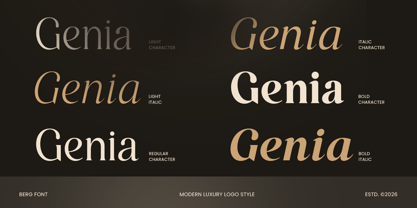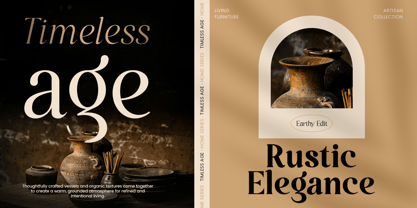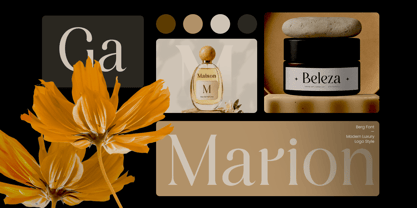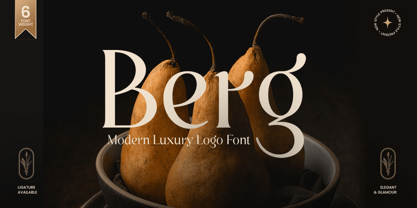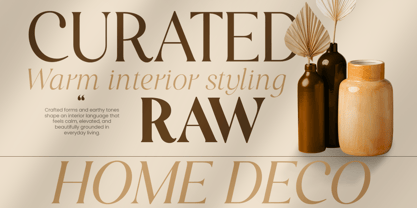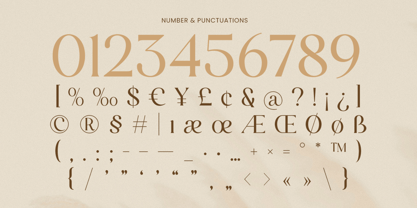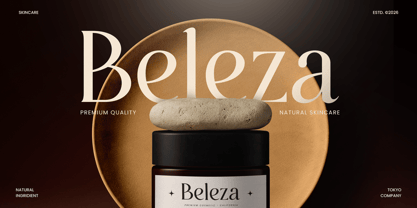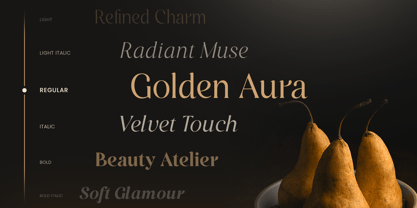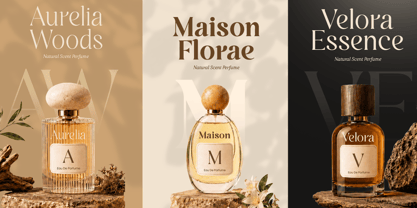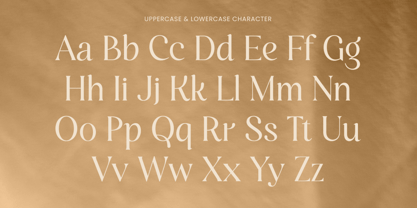
Berg is a modern luxury logo font designed to deliver refined sophistication with a clean contemporary edge. With polished letterforms, balanced proportions, and a confident visual rhythm, this typeface creates a premium tone that feels elegant, stylish, and instantly brand-ready.
Built for logo-focused branding, Berg works beautifully across wordmarks, brand identity systems, website headers, editorial layouts, packaging, labels, invitations, signage, presentations, and upscale marketing visuals. Its modern luxury structure keeps every composition clear and polished while adding a high-end presence across both digital and print design.
Whether you’re building a fashion identity, developing a beauty brand, designing premium packaging, or crafting elegant promotional materials, Berg provides a sophisticated foundation that makes your typography feel timeless, professional, and unforgettable.
Inspiration Behind Berg
Berg is inspired by contemporary luxury branding and refined logo typography—where clean structure, elegant rhythm, and premium simplicity create lasting visual identity. The design focuses on polished balance and modern sophistication to support high-end wordmarks and upscale brand systems.
Berg Font Features:
• Modern luxury letterforms optimized for logo and wordmark design
• Prepared with 6 weight style, it will be helpful to create any variations
• Elegant structure with premium, high-end visual character
• Strong readability for branding, headlines, and editorial layouts
• Uppercase, lowercase, numerals, and punctuation included
• OpenType features for polished professional typesetting
Perfect For
• Luxury logos, wordmarks, and premium brand identity systems
• Fashion, beauty, skincare, fragrance, and boutique branding
• Editorial layouts, magazine covers, and elegant headline typography
• Premium packaging, labels, invitations, and upscale stationery
• Social media campaigns, websites, presentations, and marketing assets